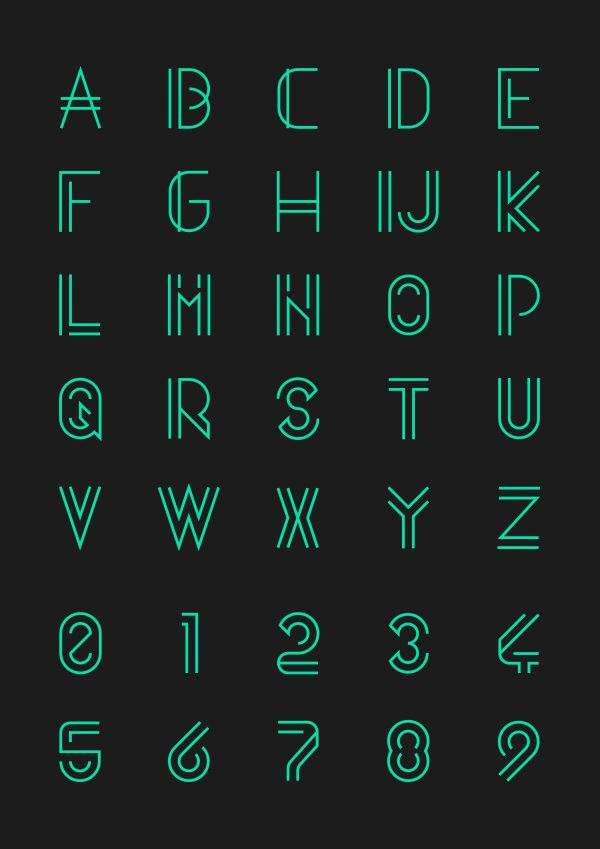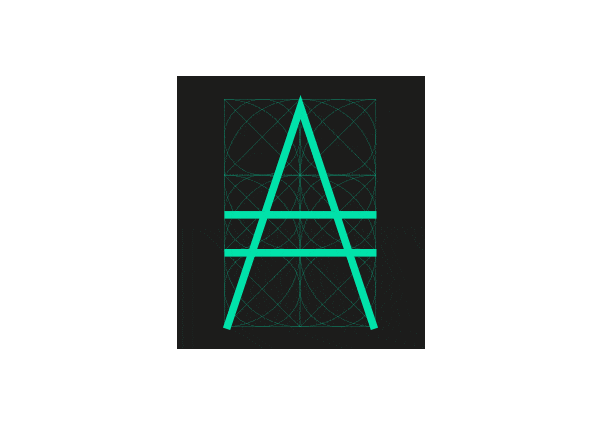
Free Font Of The Day #96 – Quasith Font
Quasith Font
Regular is an uppercase free for personal use font created by the italian designer Egidio Filippetti.